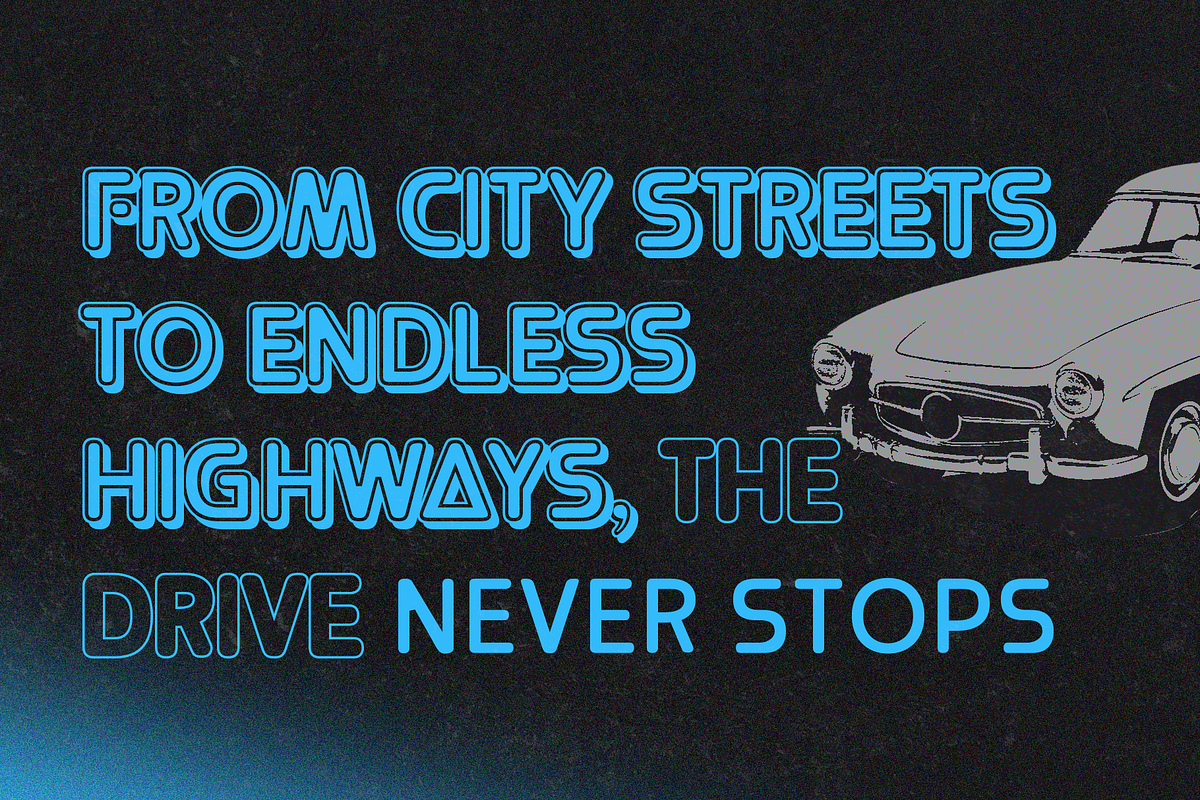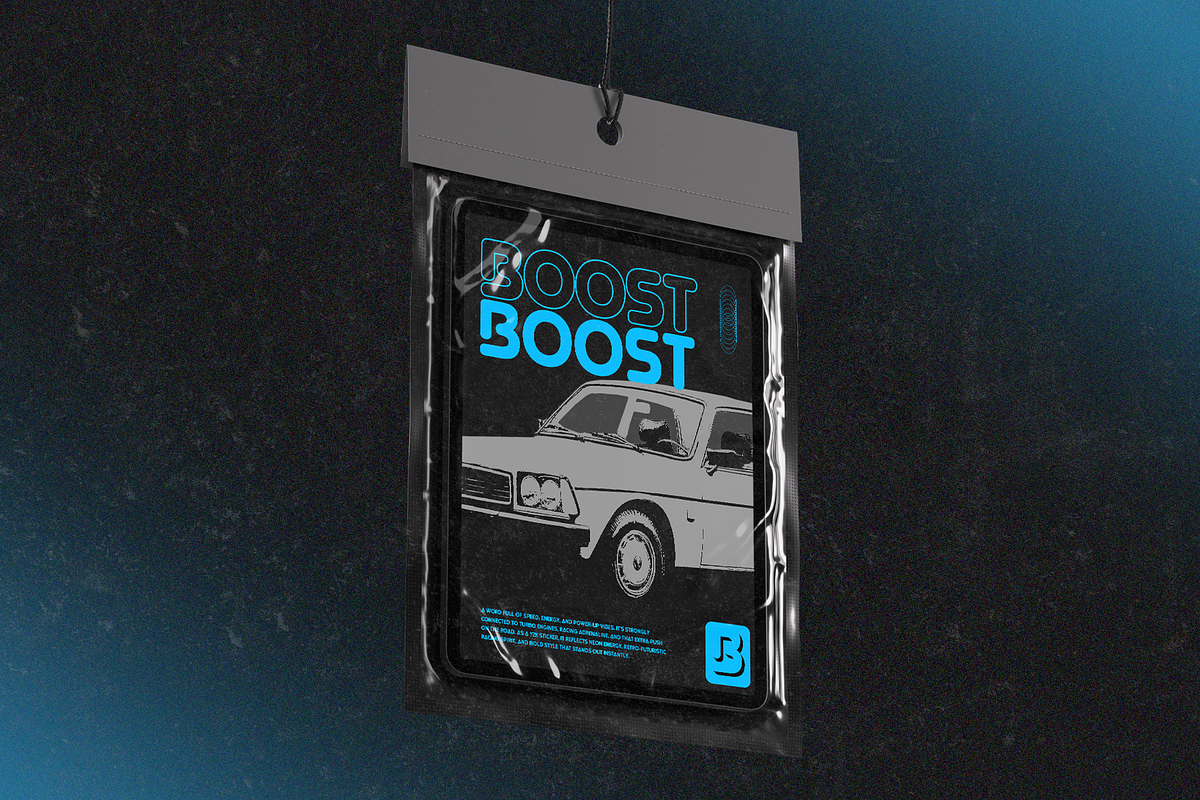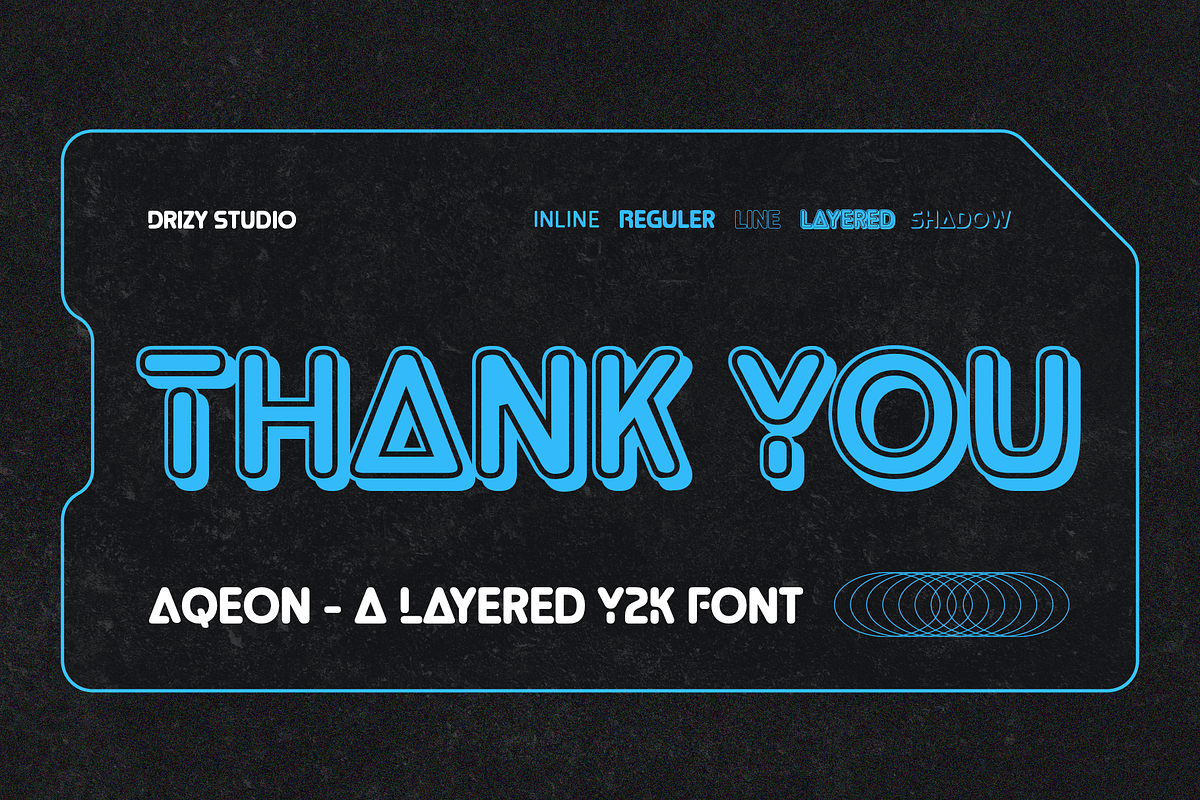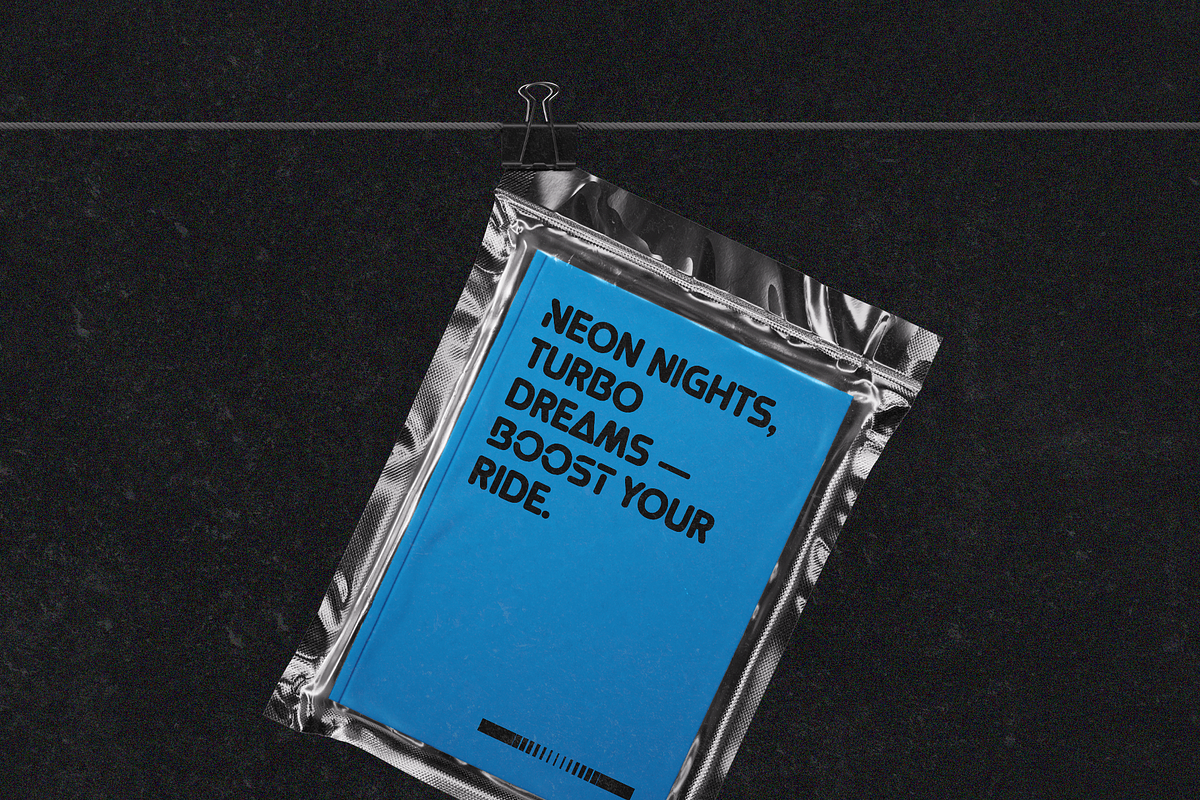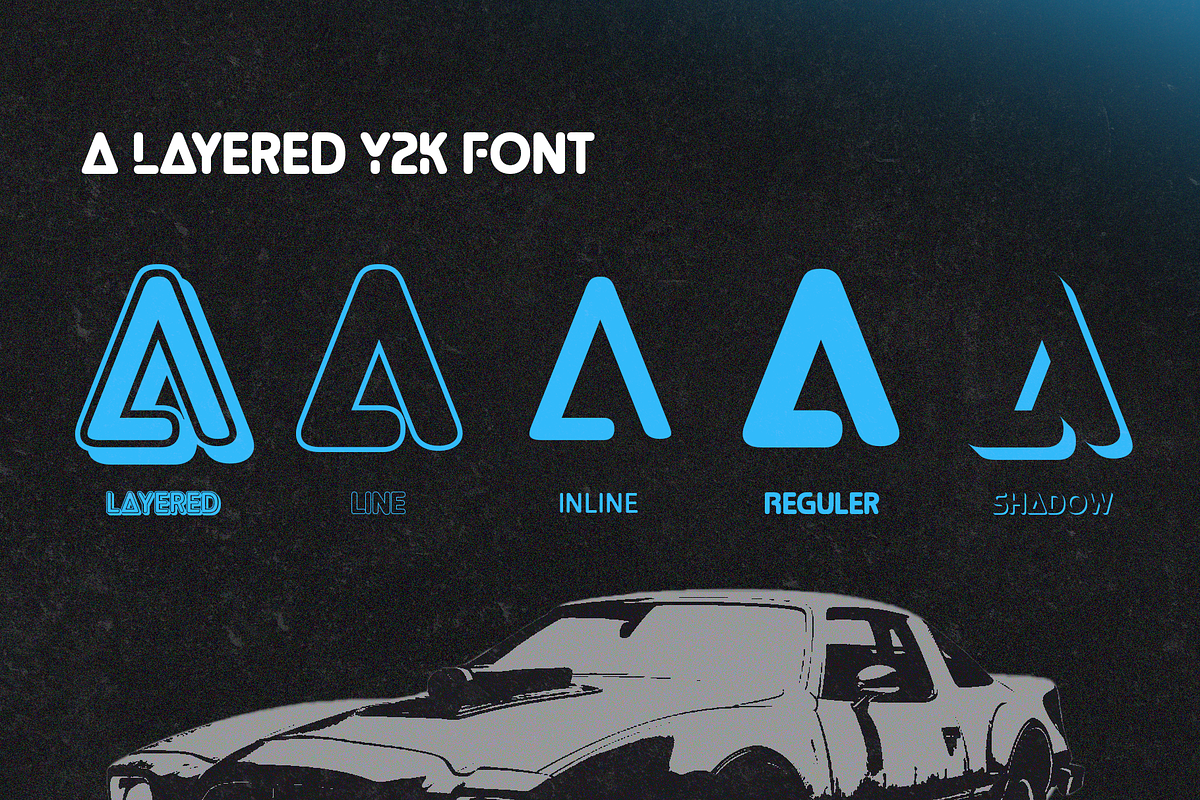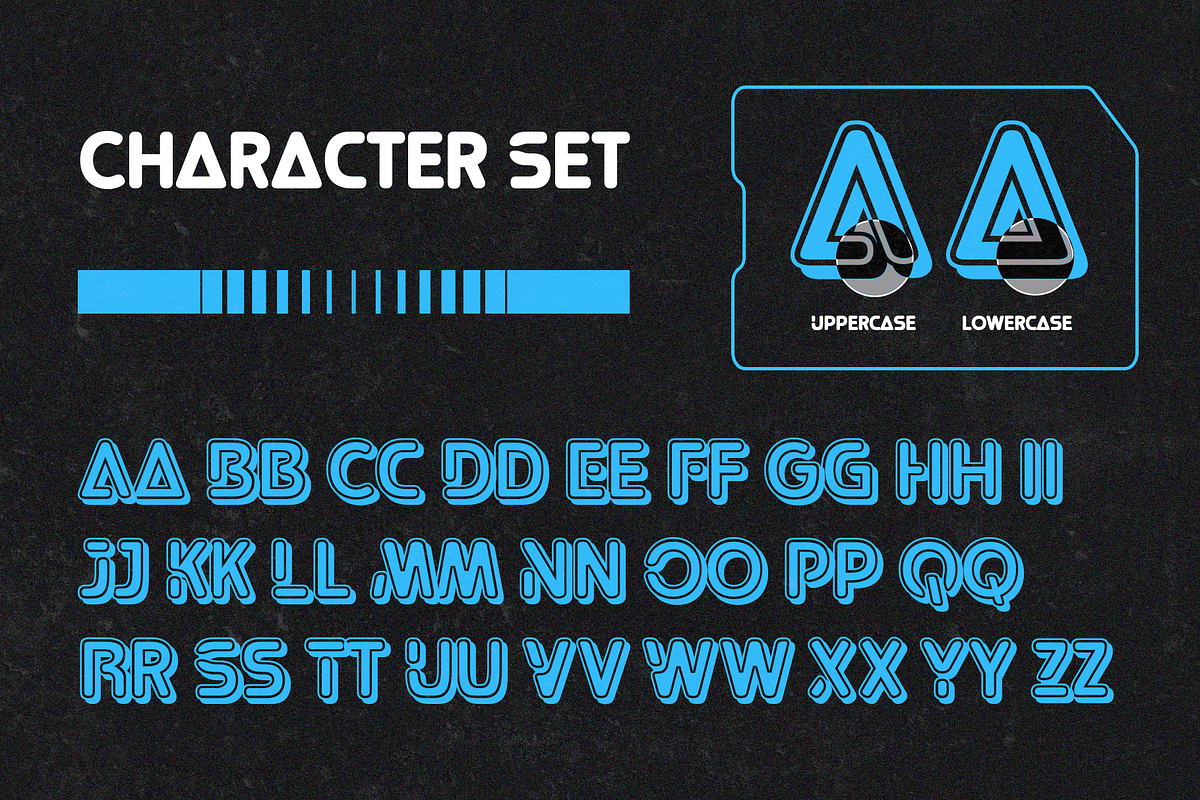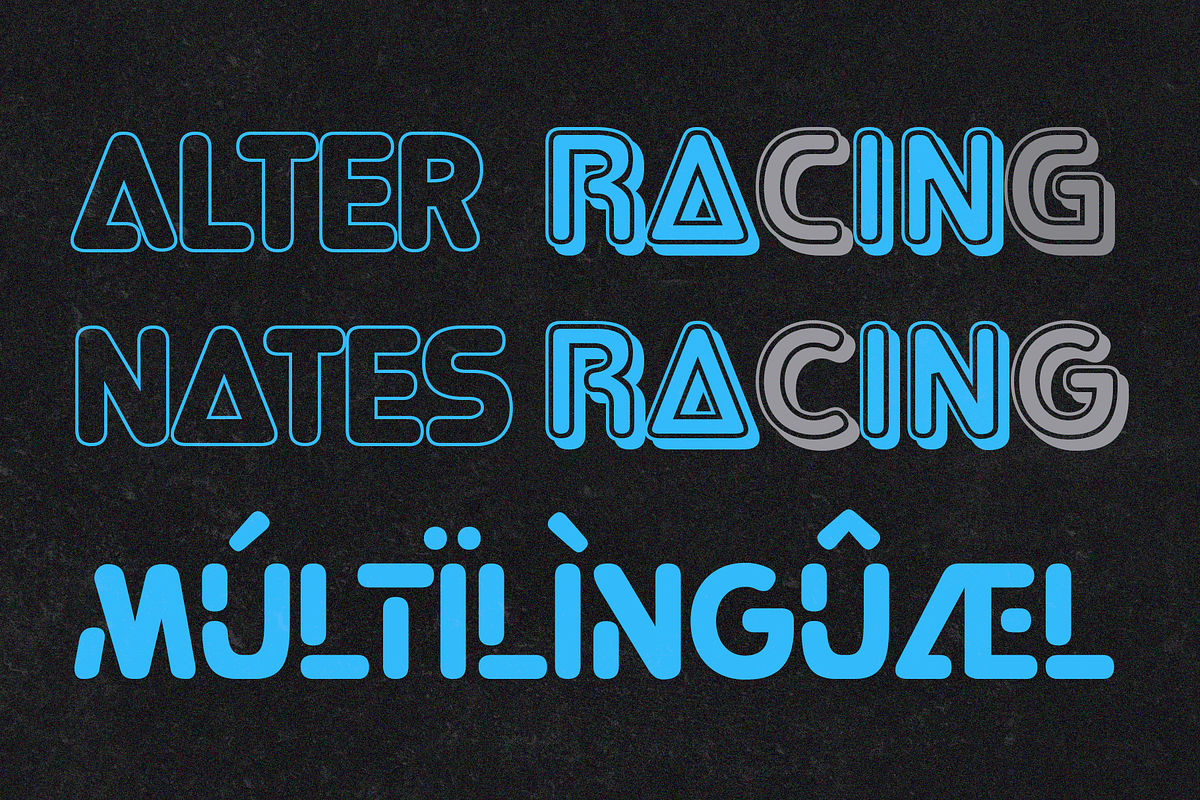
Aqeon - Layered Y2K Font
Step into the futuristic vibes of the early 2000s with Aqeon, a bold layered typeface inspired by Y2K aesthetics and digital nostalgia. Its sleek geometric forms and playful layering options make it perfect for eye-catching logos, posters, apparel, or album covers.
This font captures the spirit of retro tech, metallic gradients, and glossy magazine energy — giving your design that nostalgic yet modern edge.
Aqeon - Layered Y2K Font features:
- Variable: Inline, Layered, Line, Regular, Shadow
- Standard & Discretional Ligatures